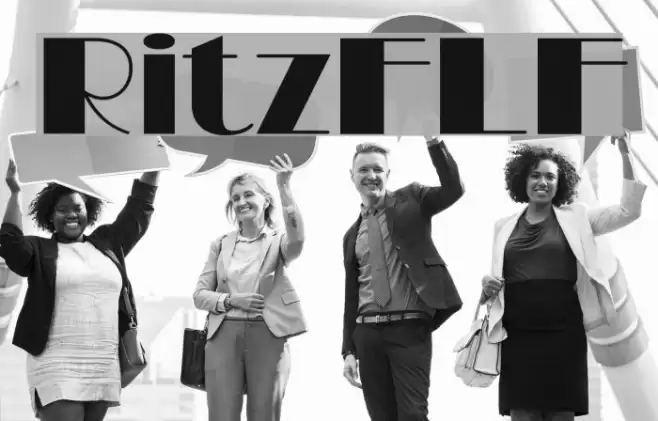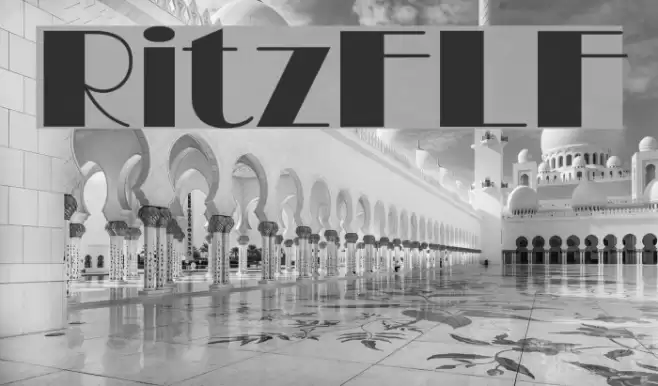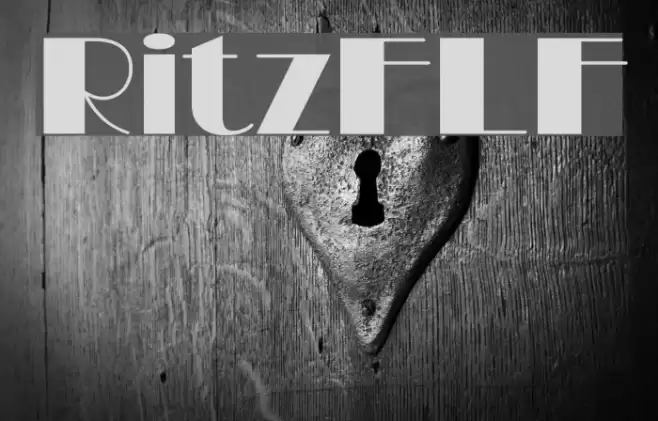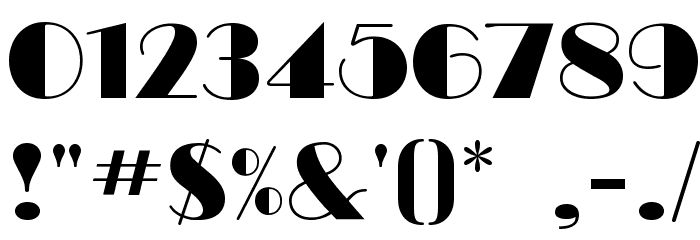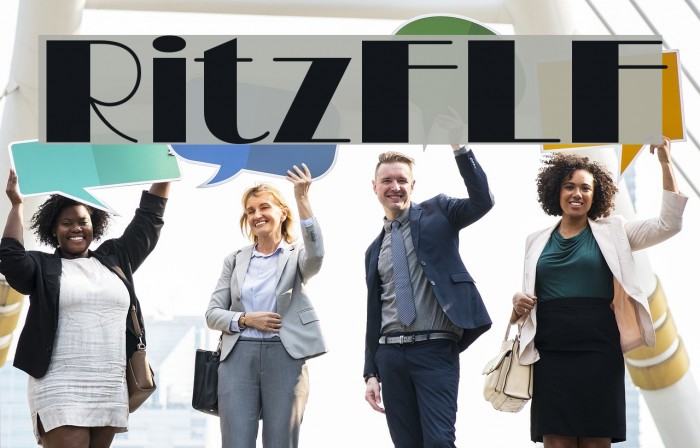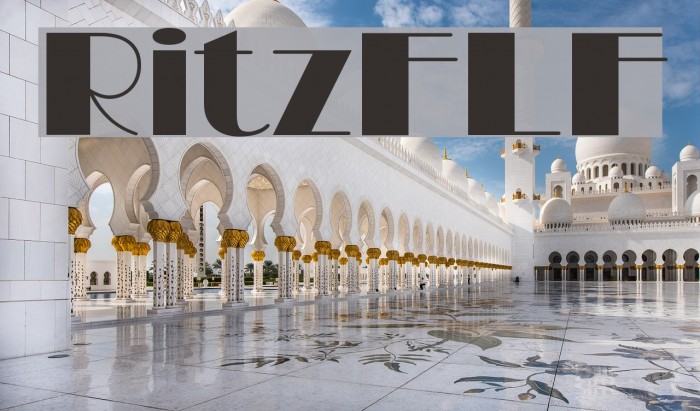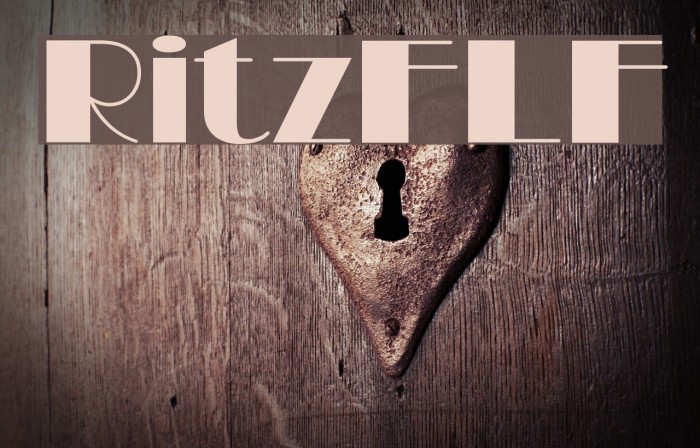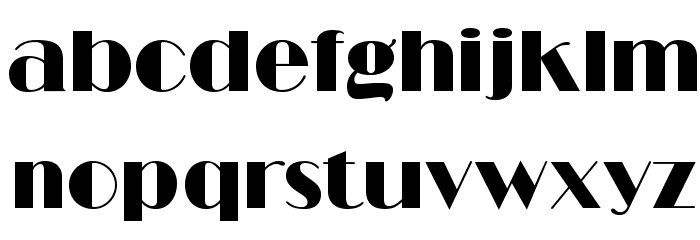
RitzFLF Font
RitzFLF Description
This font features a bold and striking design, characterized by its high contrast between thick and thin strokes. The uppercase letters exhibit a unique geometric flair, with sharp angles and clean lines that create a modern and sophisticated appearance. The lowercase letters maintain a consistent style, offering a smooth and cohesive look. The numerals are equally bold, ensuring readability and impact. Special characters are designed with the same attention to detail, making them stand out while maintaining harmony with the rest of the typeface. Overall, this font exudes elegance and modernity, making it suitable for a variety of design applications.
A bold, high-contrast font with geometric flair and modern elegance from Uncategorized fonts.
- Proposed Projects: Ideal for luxury branding, editorial design, fashion magazines, and high-end product packaging.
- Use Case: Headlines, Logos, Branding